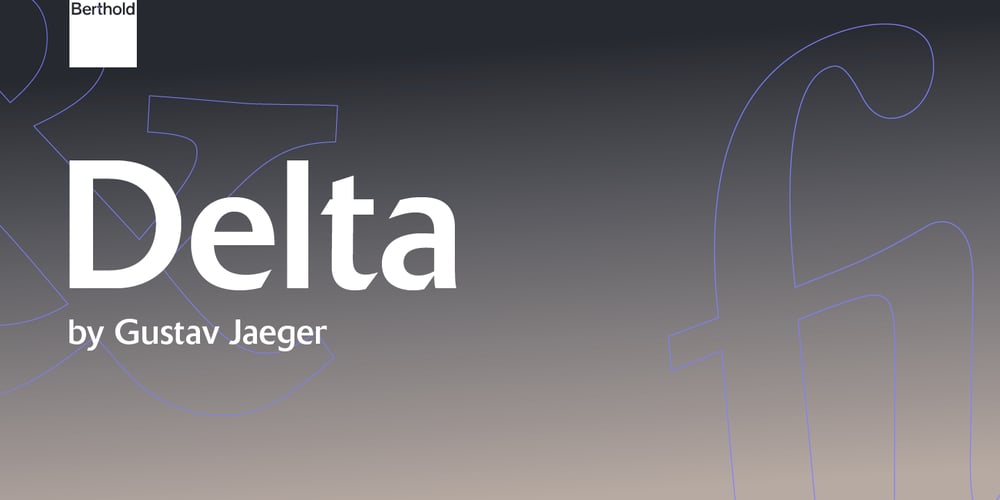
Delta Font Family was designed by Gustav Jaeger and published by Berthold. Delta contains 9 styles and family package options. Designed for Berthold by Gustav Jaeger in 1983, Delta is a distinctive sans serif with strokes that are carved at an angle where they meet vertical strokes. Its legibility makes it an appropriate choice for bodies of text as well as for display work.